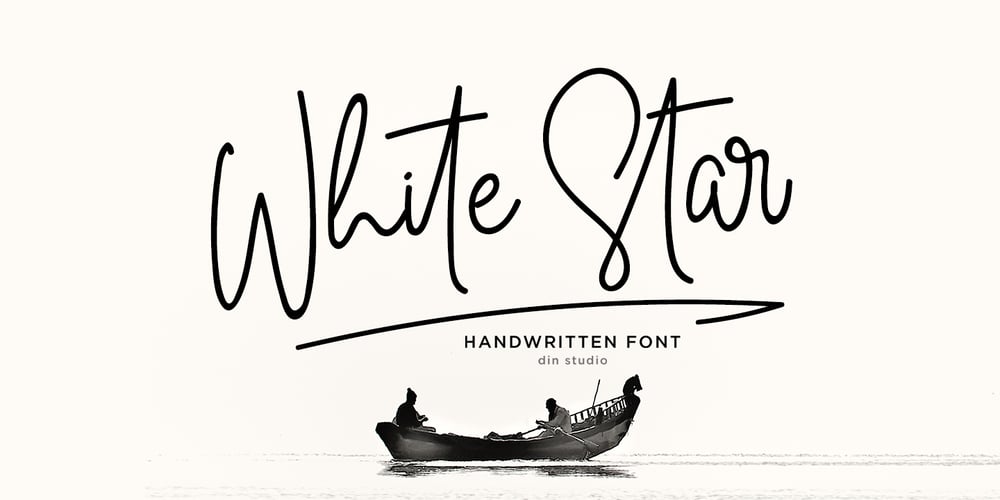
White Star
White Star font
White Star Font Family was designed by Donis Miftahudin and published by Din Studio. White Star contains 1 styles and family package options. Introducing White Star for your amazing design projects. With a elegant and natural handwritten style, it brings beauty and chic to your designs. White Star is best used for logotype, branding, wedding and quotes. Features: Beautiful Ligatures PUA Encoded Multilingual Support Numerals and Punctuation Note: Every swash and ligatures is already included in White Star I hope your design projects will be more beautiful with this White Star. Thank You!